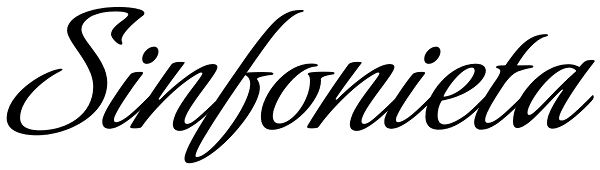
Sinfonieta
The unmistakable brush of Angel Koziupa does its unique work again, this time with the elegant strokes made for branding or packaging projects that entail the use of many design elements, and so require clear and simple artistic alphabet to...
Sinfonieta Alt
Sinfonieta